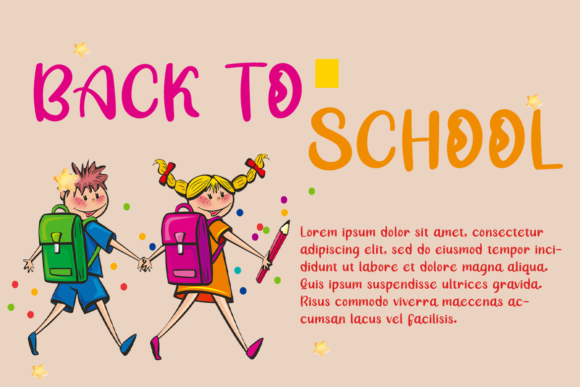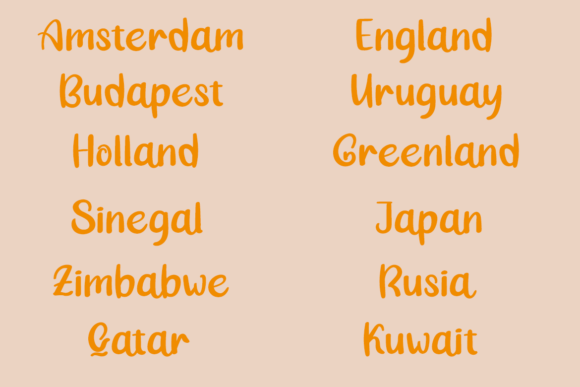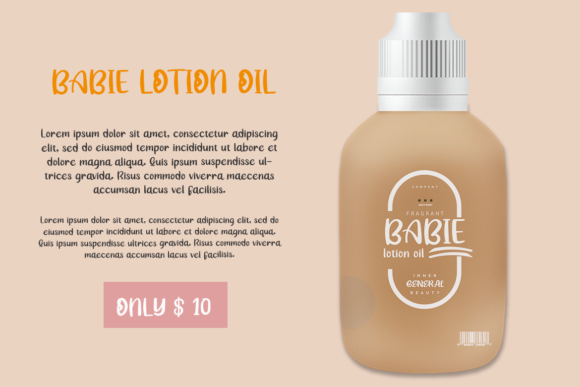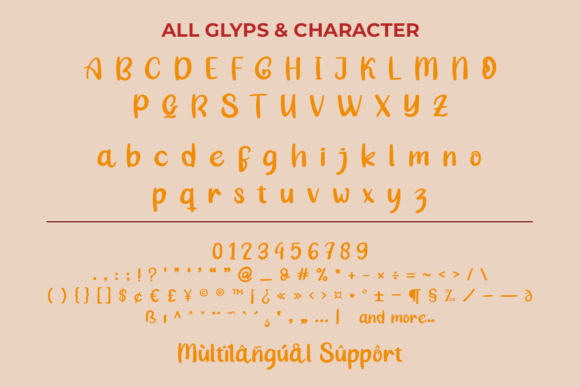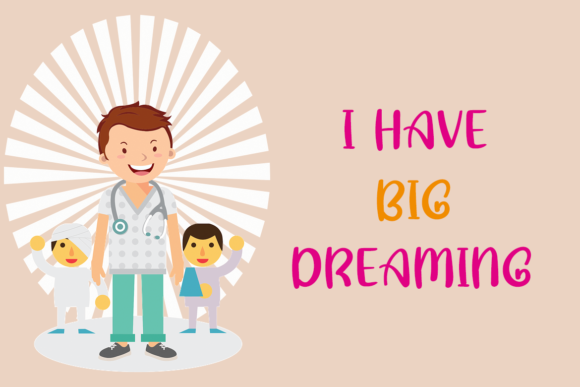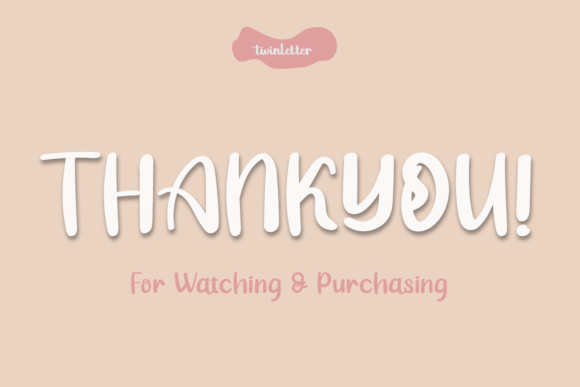
Babie Font: The Sweet and Lovely Display Font for Your Designs
Are you looking for a font that can add a touch of sweetness and friendliness to your designs? Look no further than Babie Font! This incredibly sweet and lovely display font is perfect for a wide range of design projects, from crafting and scrapbooking to branding and advertising. In this article, we’ll take a closer look at Babie Font and explore its features, benefits, and uses.
What is Babie Font?
Babie Font is a display font that boasts a natural and friendly style, making it perfect for designs that require a personal touch. Its sweet and lovely aesthetic is sure to capture the attention of your audience and leave a lasting impression. Whether you’re designing a logo, creating a social media graphic, or crafting a handmade project, Babie Font is the perfect choice.
Features of Babie Font
So, what makes Babie Font so special? Here are just a few of its key features:
- Sweet and Lovely Aesthetic: Babie Font has a unique and charming style that’s sure to add a touch of personality to your designs.
- Natural and Friendly Style: This font has a warm and approachable feel that’s perfect for designs that require a personal touch.
- Highly Versatile: Babie Font can be used for a wide range of design projects, from display text to titles and headings.
- Easy to Read: Despite its decorative style, Babie Font is highly legible and easy to read, making it perfect for use in a variety of contexts.
Benefits of Using Babie Font
So, why should you choose Babie Font for your designs? Here are just a few of the benefits of using this lovely font:
- Adds a Personal Touch: Babie Font’s sweet and lovely aesthetic adds a personal touch to your designs, making them more relatable and engaging.
- Perfect for Crafting and Scrapbooking: This font is ideal for crafters and scrapbookers who want to add a touch of personality to their handmade projects.
- Great for Branding and Advertising: Babie Font’s friendly and approachable style makes it perfect for use in branding and advertising projects, such as logos, social media graphics, and flyers.
- Easy to Pair with Other Fonts: Babie Font pairs well with a wide range of other fonts, making it easy to create unique and visually appealing combinations.
Uses for Babie Font
So, what can you use Babie Font for? The possibilities are endless! Here are just a few ideas to get you started:
- Crafting and Scrapbooking: Use Babie Font to add a personal touch to your handmade projects, such as scrapbook pages, cards, and journal entries.
- Branding and Advertising: This font is perfect for use in branding and advertising projects, such as logos, social media graphics, and flyers.
- Wedding and Party Decor: Babie Font’s sweet and lovely aesthetic makes it perfect for use in wedding and party decor, such as invitations, banners, and centerpieces.
- Social Media Graphics: Use Babie Font to create eye-catching social media graphics, such as Facebook posts, Instagram stories, and Twitter headers.
In conclusion, Babie Font is a sweet and lovely display font that’s perfect for a wide range of design projects. Its natural and friendly style makes it fitting to a large pool of designs, and the only limit is your imagination! Whether you’re a designer, crafter, or DIY enthusiast, Babie Font is a great choice for adding a personal touch to your projects. So why not give it a try and see what amazing designs you can create?